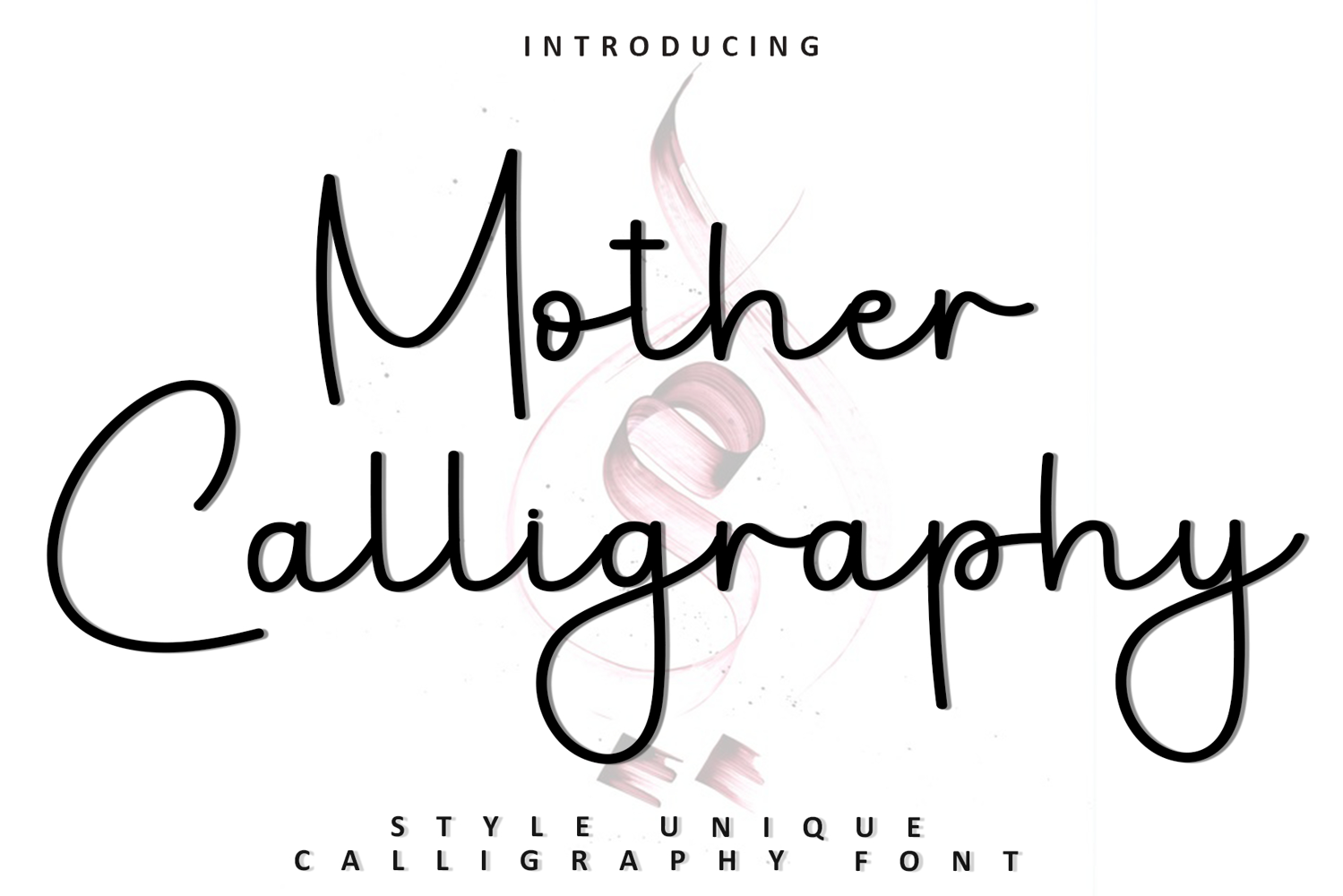
Mother Calligraphy
Mother Calligraphy is a beautiful and eye-catching font designed with a soft, unique touch. Its distinctive strokes give it a special character, making it meaningful and versatile for future use. With various characters, it’s perfect for design projects, crafts, and other creative works.